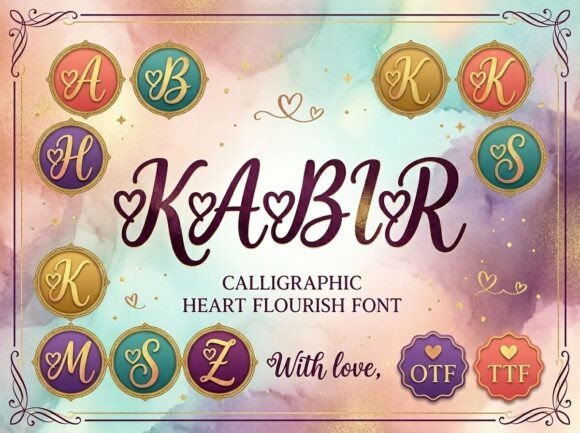
The Heart of Typography: Unveiling the Kabir Font
As a designer, there’s nothing quite like the thrill of discovering a new font that speaks to your creative soul. For me, it was the moment I stumbled upon the Kabir Font – a whimsical calligraphic script that seemed to whisper sweet nothings to my imagination. Its delicate, hand-drawn heart flourishes instantly won me over, and I knew I had to learn more about this charming font.
The Kabir Font is a true gem for designers, perfect for infusing romance and personality into any design project. Whether you’re creating a Valentine’s Day card or a wedding invitation, this font adds a touch of love and whimsy that’s impossible to resist. Its unique, rhythmic style makes it a valuable addition to any designer’s toolkit, and its versatility ensures it will always be a “sweetheart” choice for projects that require a little extra heart.
- Unique Characteristics: The Kabir font is a calligraphic script font, designed to resemble traditional Indian calligraphy. It features intricate details, ornate flourishes, and a unique aesthetic that sets it apart from other fonts.
Kabir Font Review
I’ve had the chance to work with the Kabir font, and I must say it’s a unique and intriguing addition to any design project. ✨ Here are some of the things I like about it:
- Its elegant and refined aesthetic makes it perfect for high-end branding and luxury design projects.
- The font’s subtle nuances in letterform and stroke variation add a touch of sophistication and depth.
- Kabir font supports a wide range of languages, making it a great choice for international design projects.
- ⚠️ The font may not be suitable for large body text, as its delicate nature can make it difficult to read at smaller sizes.
- ⚠️ The font’s style may not be to everyone’s taste, and some may find it too ornate or over-the-top.
Overall, I think the Kabir font is a great choice for designers looking to add a touch of elegance and sophistication to their projects. While it may have some limitations, its unique aesthetic and language support make it a valuable addition to any design toolkit.
Kabir Font is ideal for creating eye-catching headlines, titles, and quotes. To get the most out of it, use it sparingly and pair it with a clean and simple background to avoid overwhelming the text. Experiment with different font sizes and styles to create a visually appealing design.